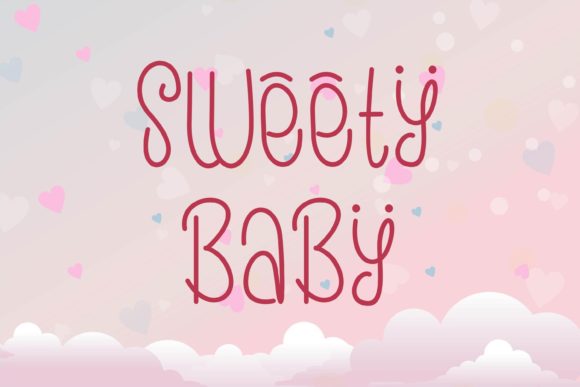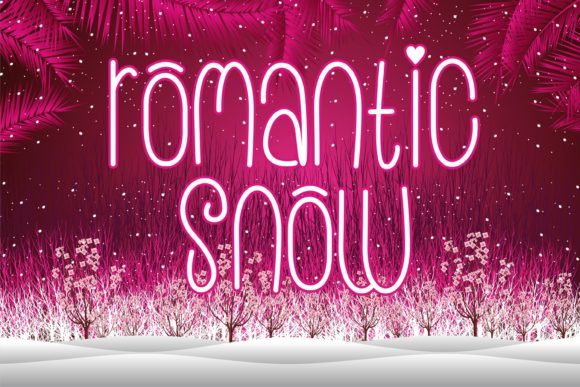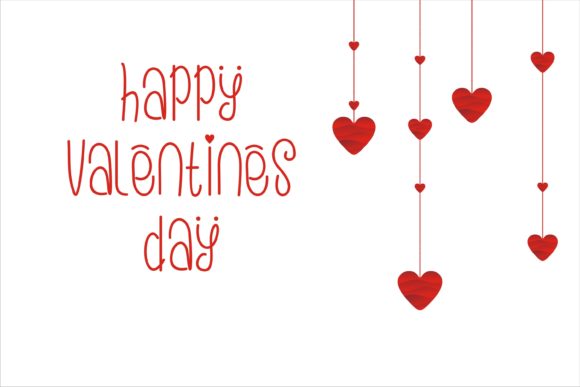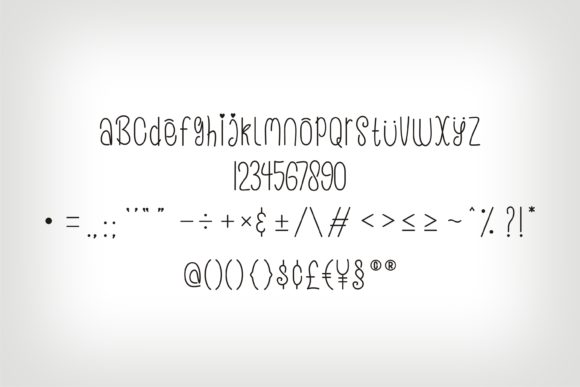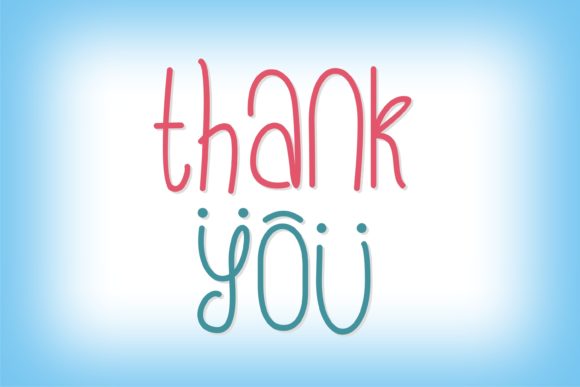
Introduction to Loveeya Girly Font Font
Fonts play a crucial role in design, and the Loveeya Girly Font font is a typeface that brings both character and versatility to any project. Whether you’re working on a branding project, a website, or a print design, the Loveeya Girly Font font offers a unique style that can elevate your work.
Loveeya Girly is a cute, thin and friendly display font.
It can be used for children related designs, school, baby stories and so on Loveeya Girly will easily become a top choice in your fontsβ library.
Key Features of Loveeya Girly Font Font
Why Choose Loveeya Girly Font Font?
The Loveeya Girly Font font is more than just a typeface β it’s a design tool that helps you communicate your message with style and clarity. Its unique character set and versatile design make it suitable for a wide range of applications, from elegant invitations to bold headlines.
With its carefully crafted letterforms and balanced proportions, the Loveeya Girly Font font ensures readability and visual appeal across all mediums.
What makes Loveeya Girly Font font special?
The Loveeya Girly Font font stands out with its unique design, exceptional readability, and versatility across various design applications.